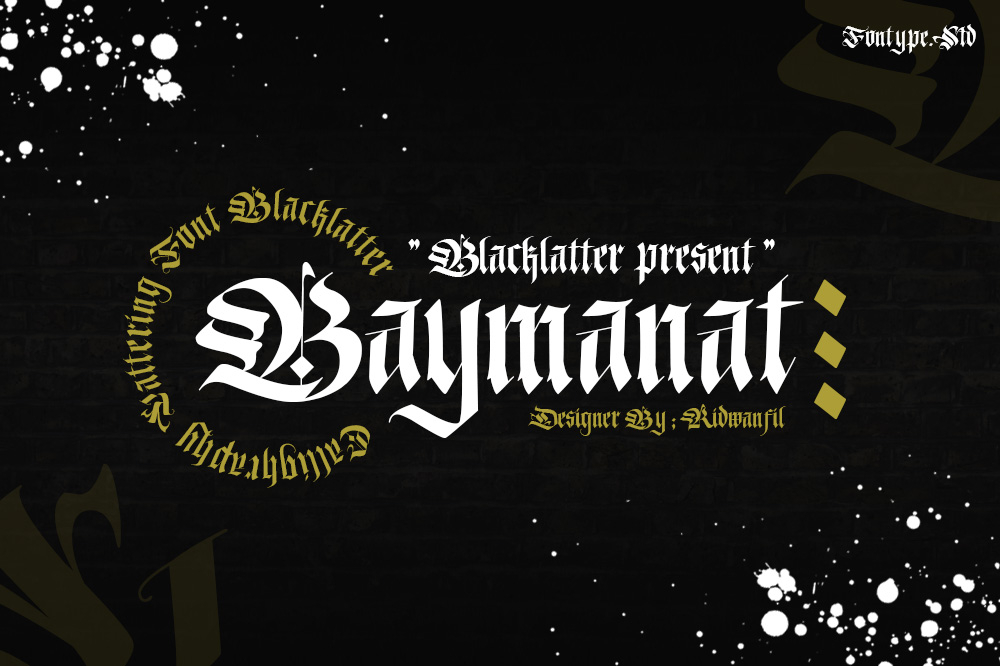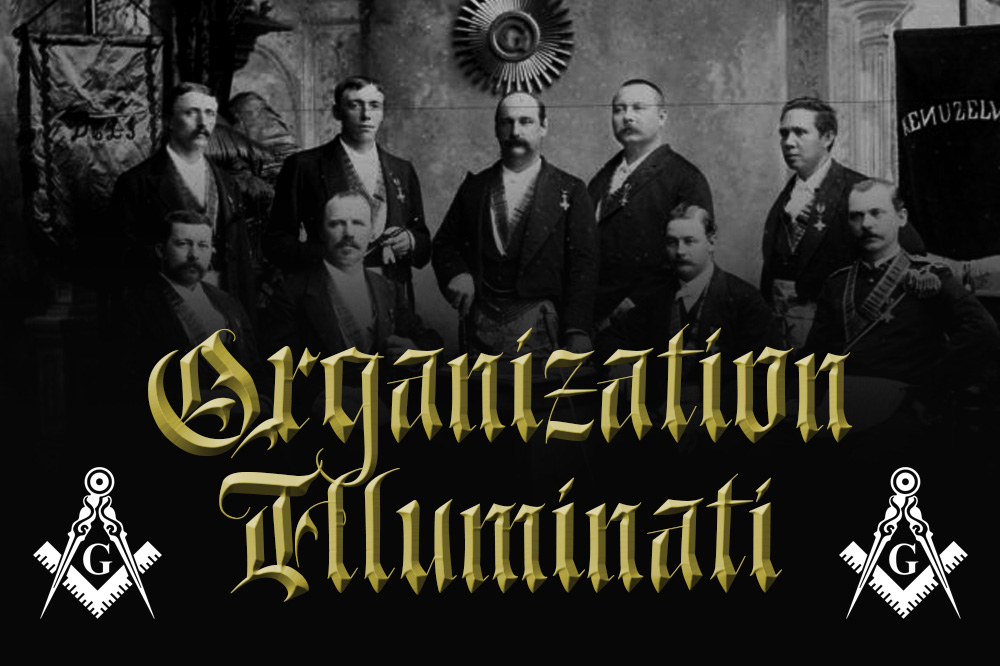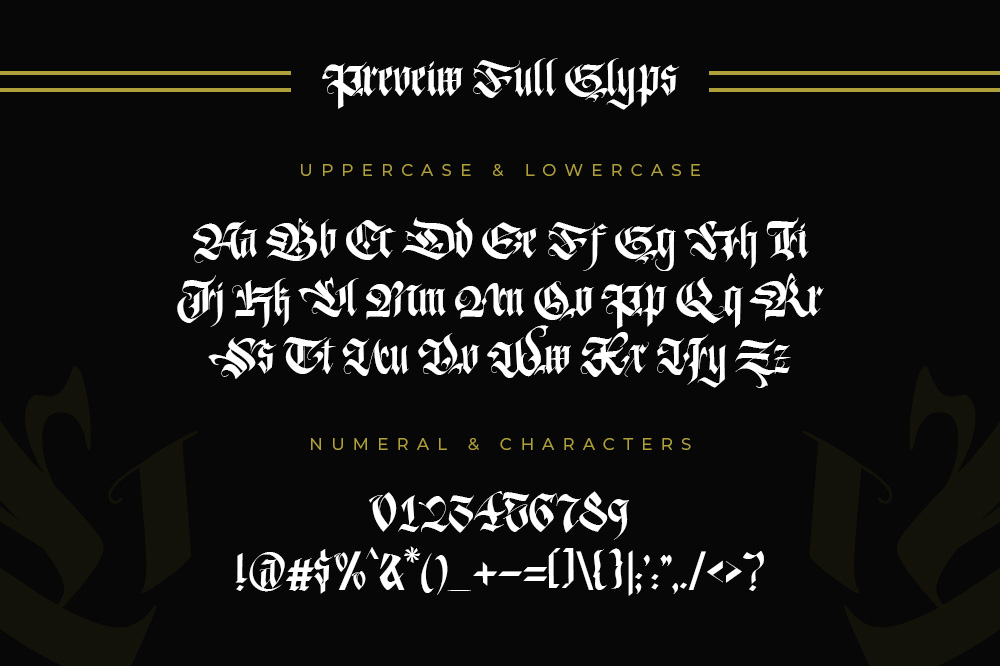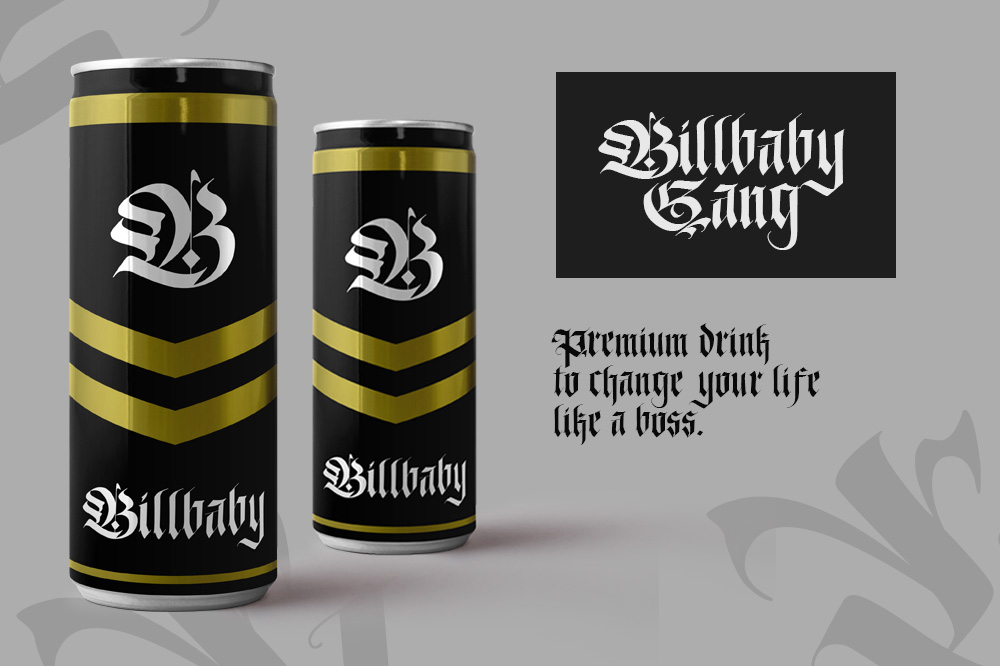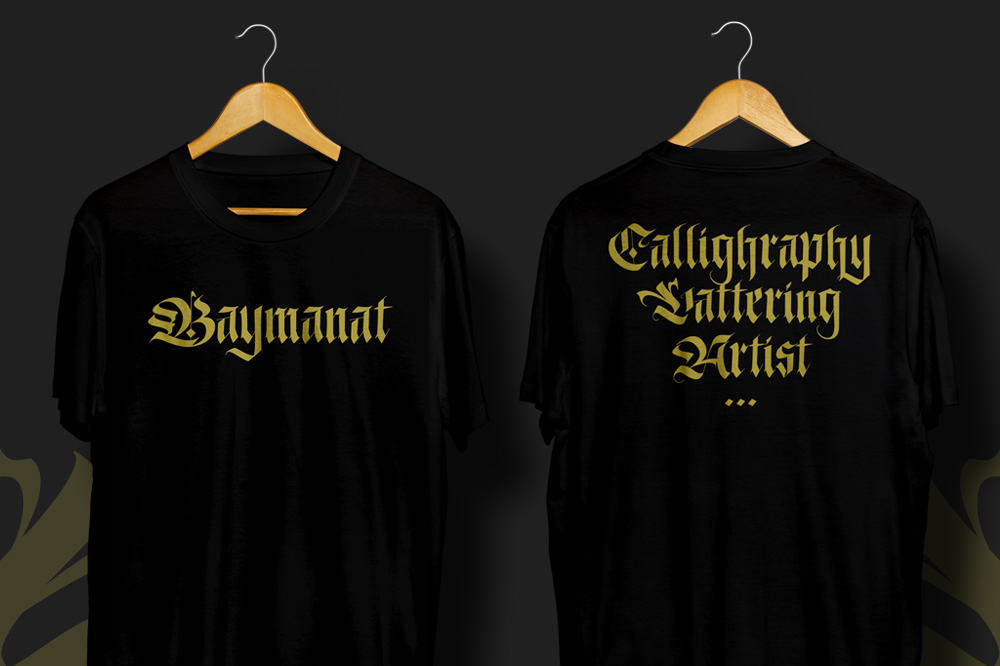
Baymanat Font
About Baymanat Font
Baymanat is a cool and authentic blackletter font. The font is suitable for any branding project such as logos, label products, t-shirt printing and many more!